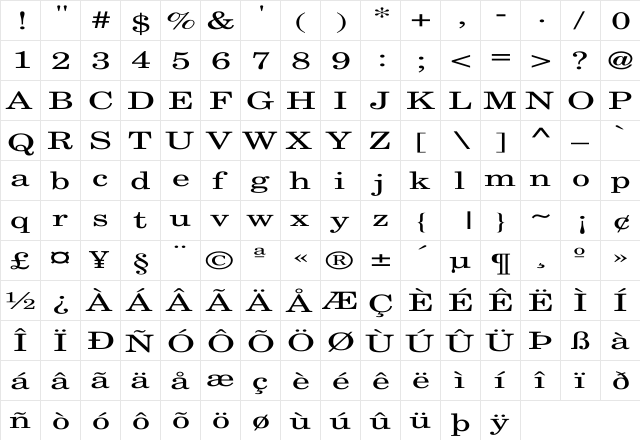
NewCenturySchlbk-Roman Ex Regular Font Preview
NewCenturySchlbk-Roman Ex Regular
Design Context for NewCenturySchlbk-Roman Ex Typeface
NewCenturySchlbk-Roman Ex takes a measured approach to typography — its balanced proportions and neutral character make it a reliable workhorse for both digital and print work.